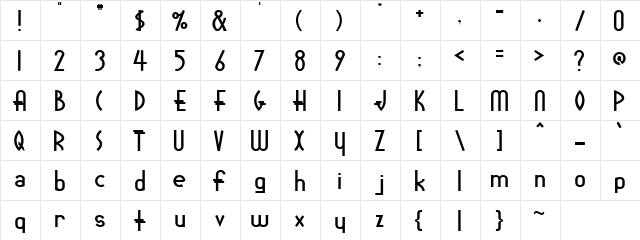
GK Soft Regular
Design Context for GK Soft Typeface
GK Soft takes a measured approach to typography — its balanced proportions and neutral character make it a reliable workhorse for both digital and print work.